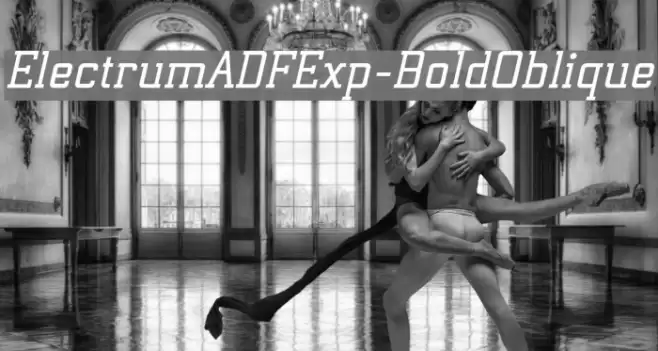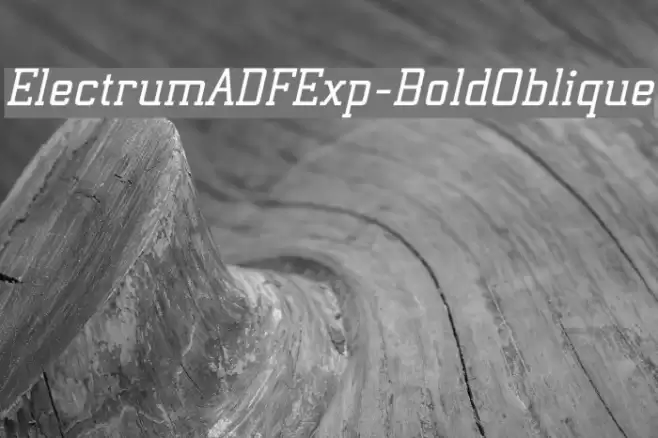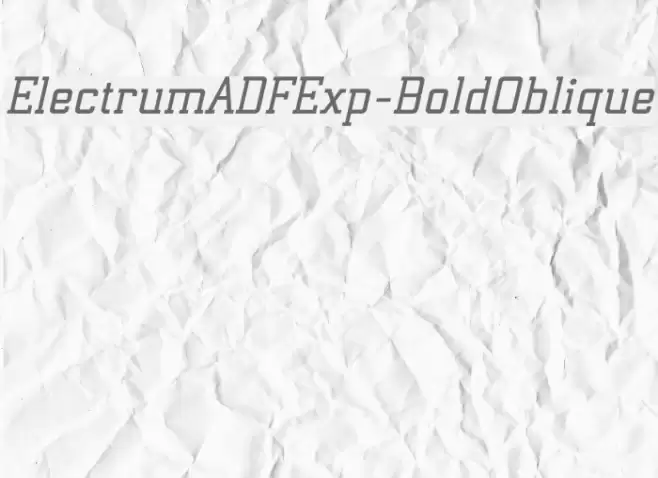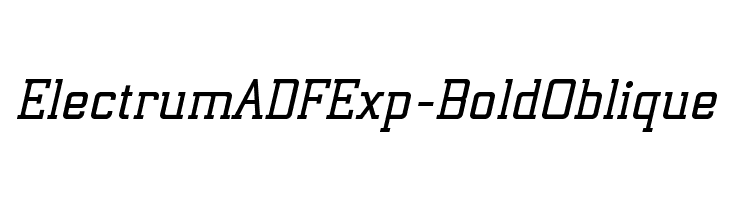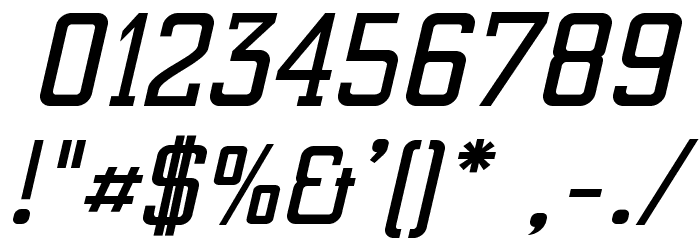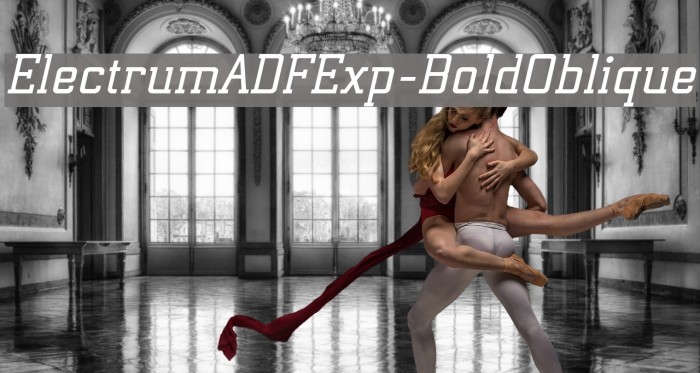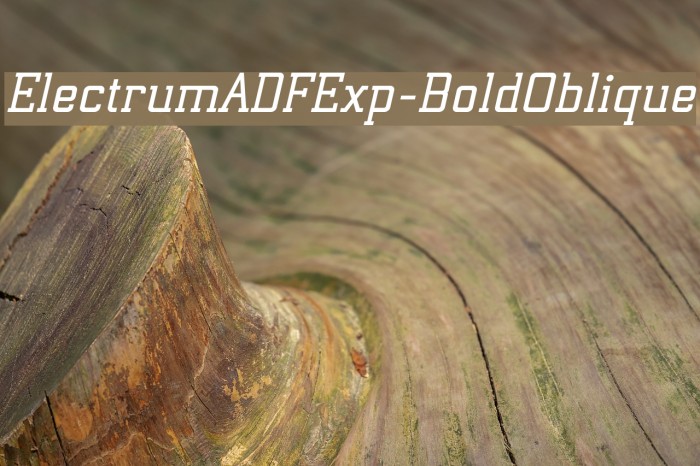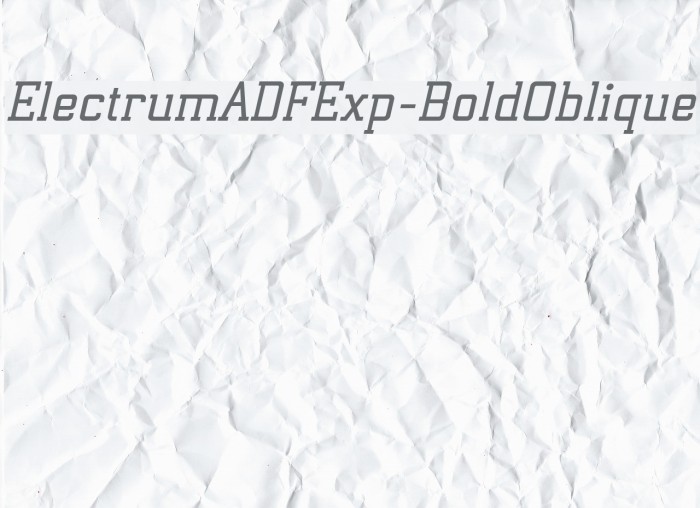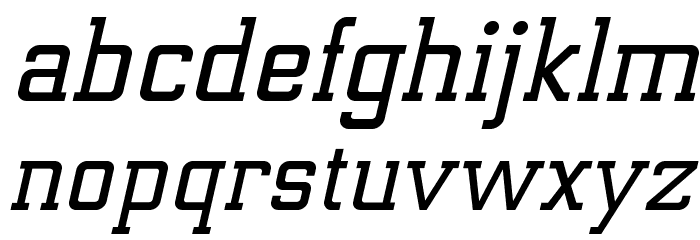
ElectrumADFExp-BoldOblique Font
ElectrumADFExp-BoldOblique Description
This font features a bold and oblique style, characterized by its strong and dynamic appearance. The uppercase and lowercase letters are designed with a forward slant, giving a sense of motion and energy. The characters are well-defined with a consistent stroke width, contributing to a clean and modern look. The numerals and special characters maintain the same boldness and slant, ensuring uniformity across all glyphs. This font is suitable for projects that require a contemporary and assertive typeface.
A bold, oblique font with a modern and dynamic style from Uncategorized fonts.
- Proposed Projects: Ideal for branding, advertising, sports-related designs, and modern editorial layouts.